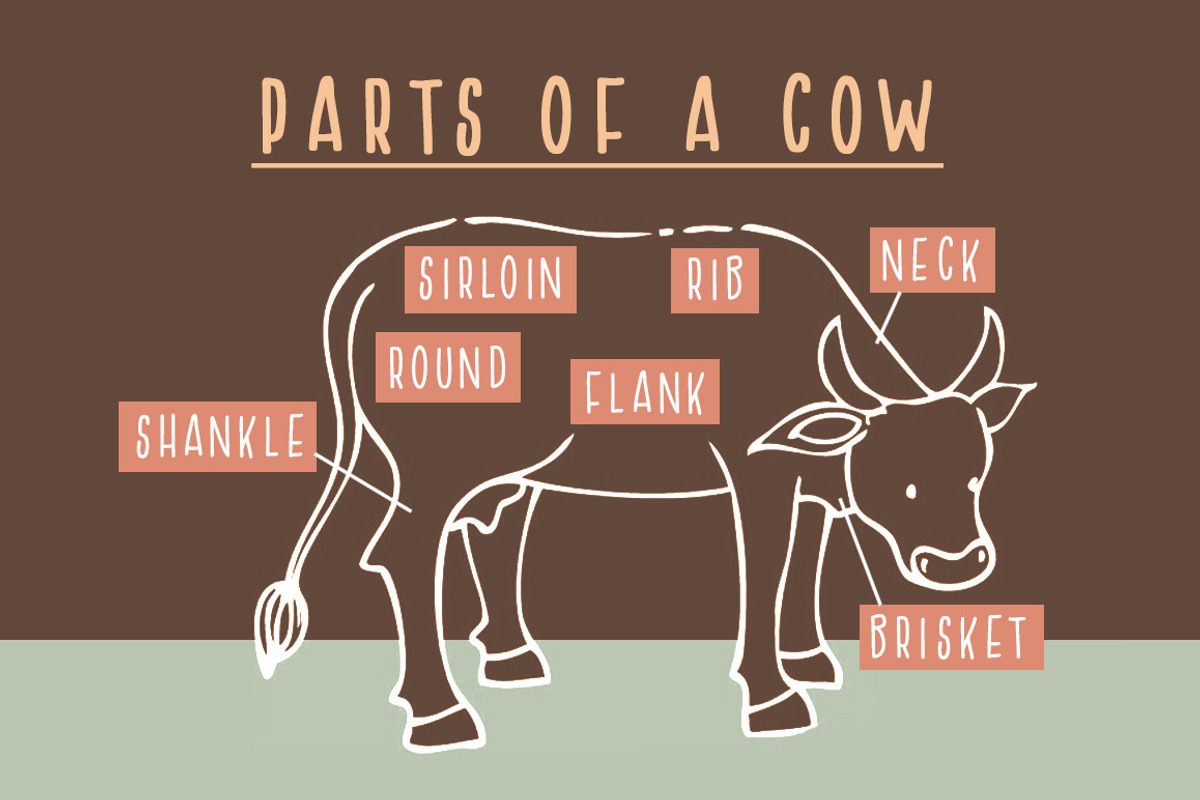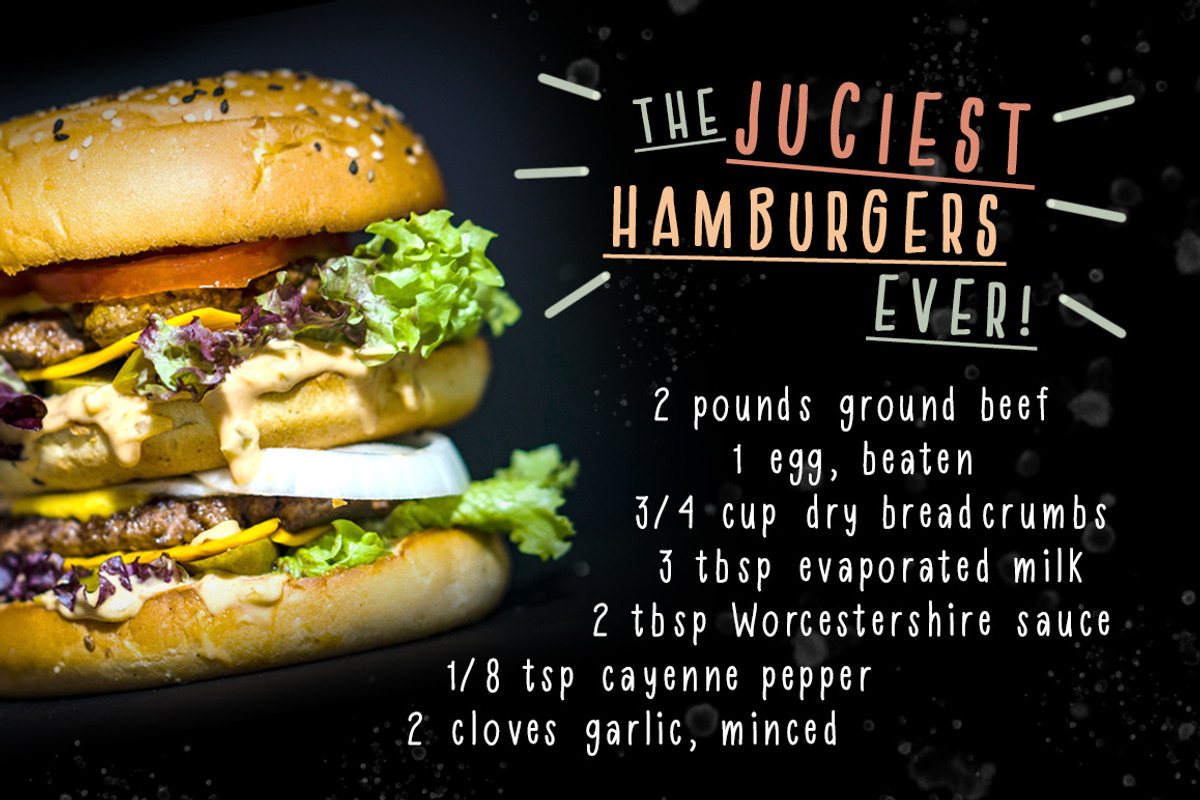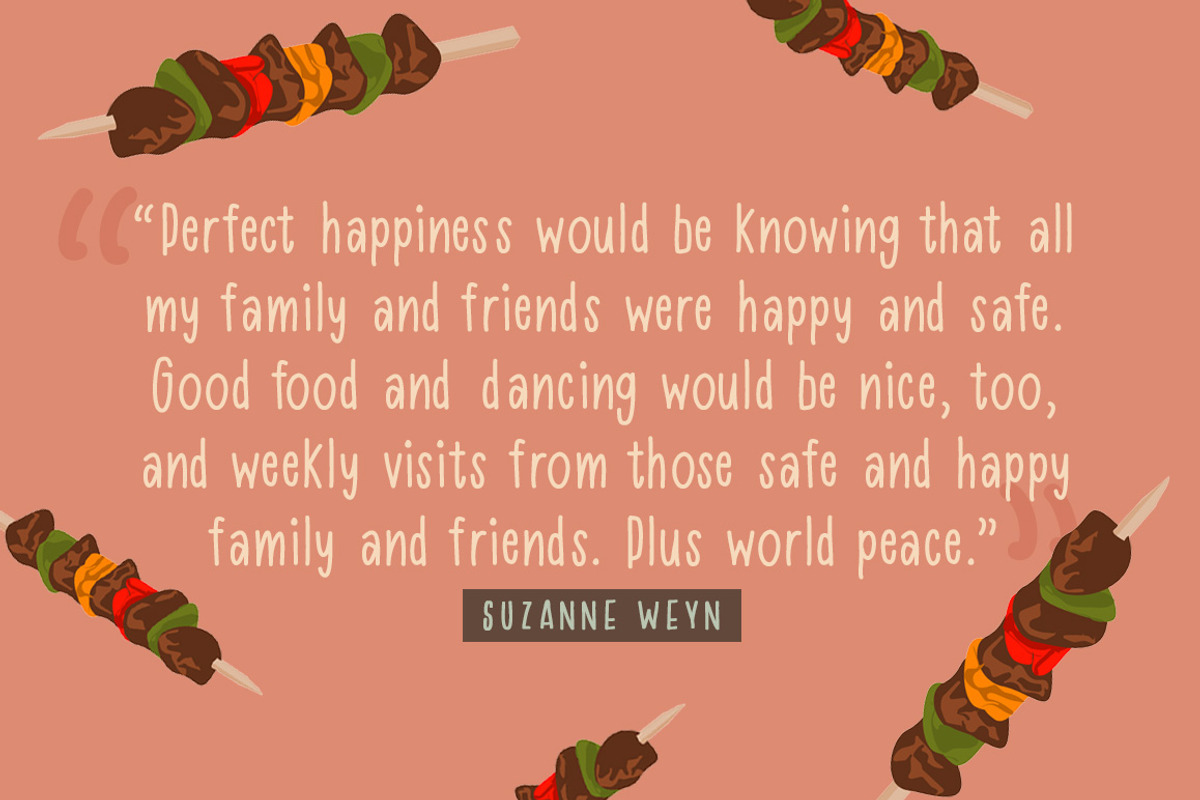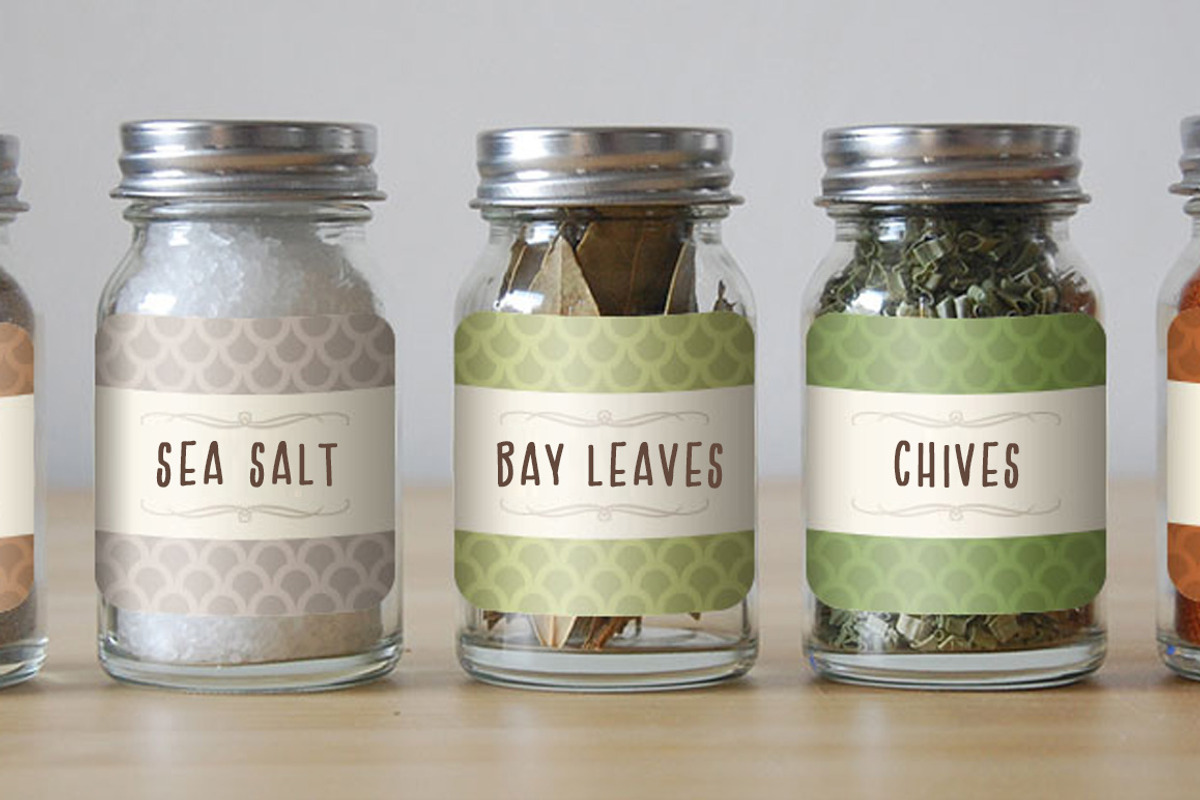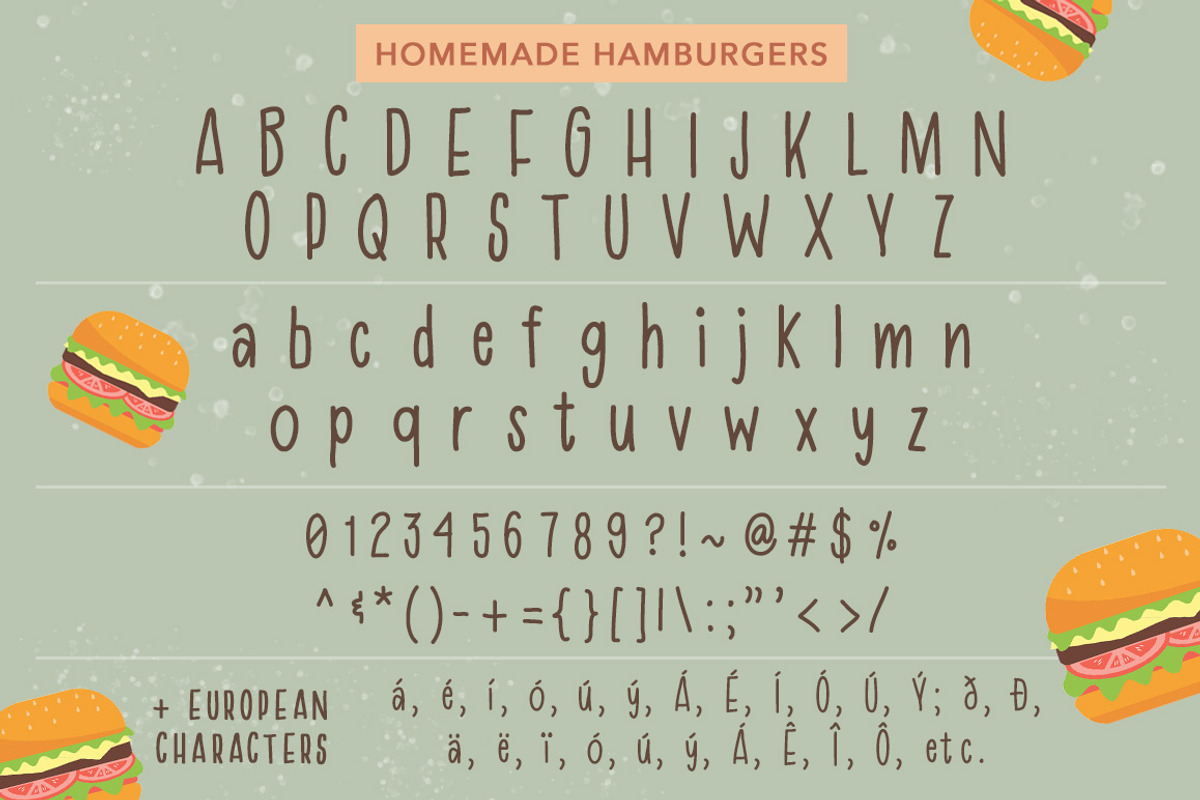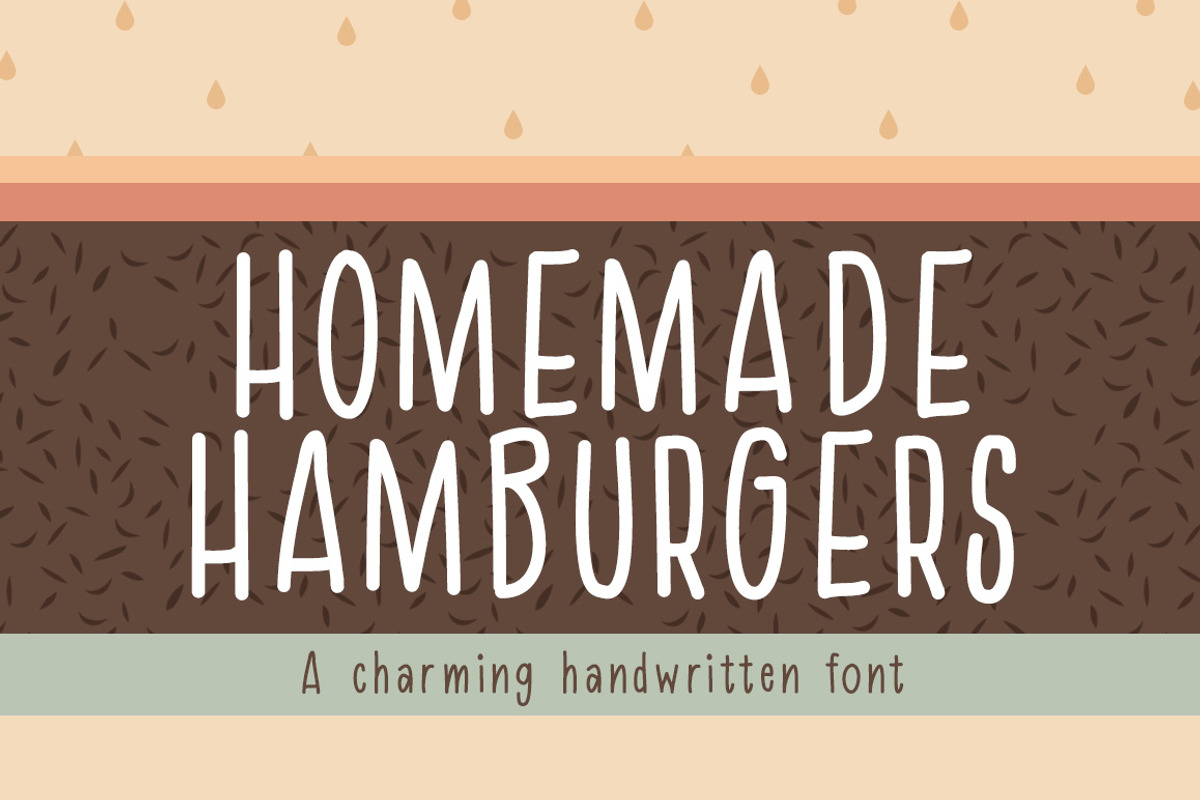
Homemade Hamburgers Font
Homemade Hamburgers is a simple, quaint, handwritten font. Perfect for projects that need that homemade, organic vibe, this font simply evokes a taste for simple but sophisticated nostalgia.
- All uppercase
- All lowercase
- Numerals and punctuation
- European language characters